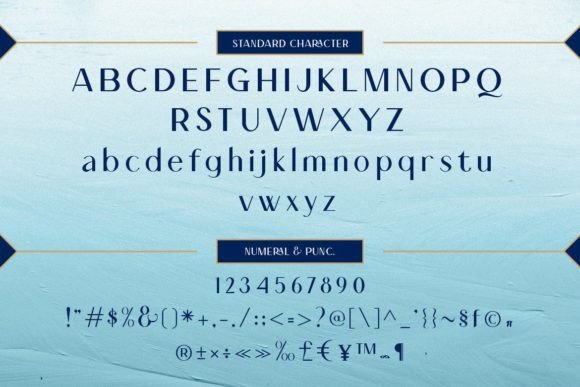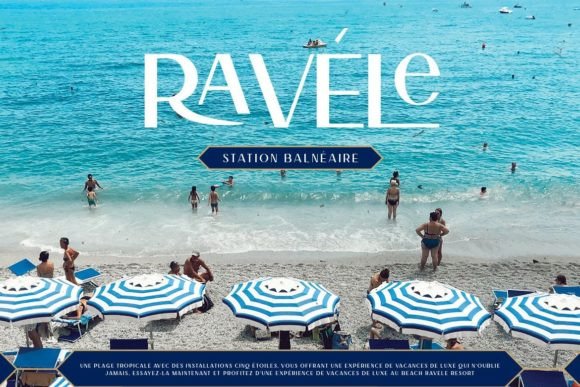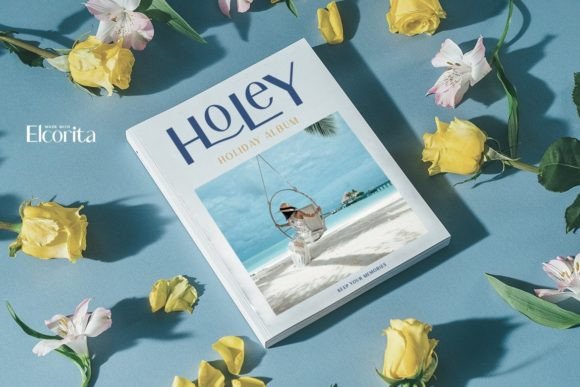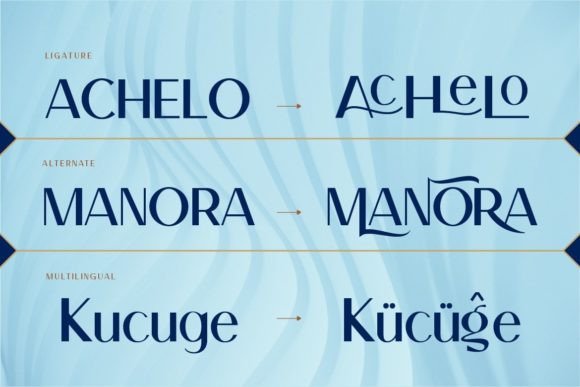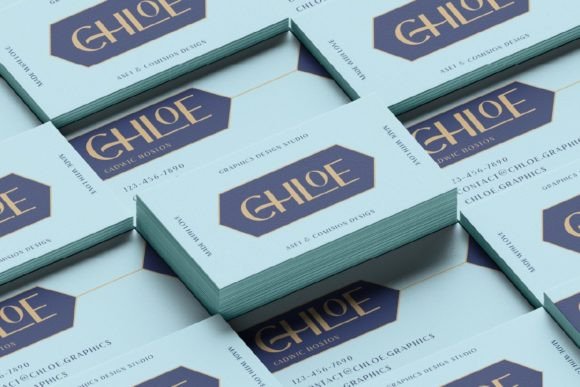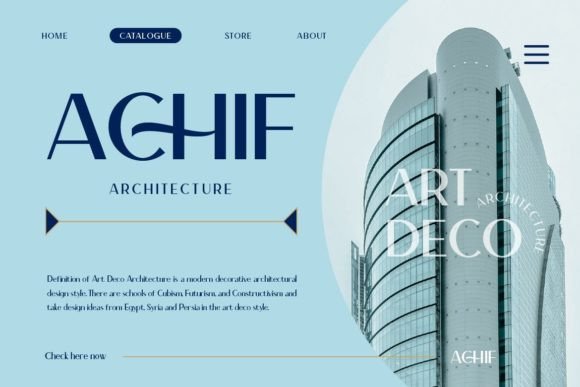
Introducing Elcorita – A Stunning Modern Sans Serif Art Deco Font
Are you tired of using the same old fonts for your design projects? Look no further than Elcorita, a gorgeous modern sans serif art deco inspired font that is sure to elevate your designs to the next level. With its bold contrasts, clean lines, and simple elegance, Elcorita is the perfect choice for designers and crafters looking to add a touch of sophistication to their work.
What is Elcorita Font?
Elcorita is a modern sans serif font that draws inspiration from the art deco style, popularized in the 1920s and 1930s. Characterized by its bold contrasts, geometric shapes, and metallic materials, art deco is a design movement that exudes luxury, glamour, and sophistication. Elcorita font captures the essence of art deco, while also incorporating a clean and simple aesthetic that makes it versatile and easy to use.
Key Features of Elcorita Font
So, what makes Elcorita font stand out from the rest? Here are some of its key features:
- Bold Contrasts: Elcorita font features bold contrasts that give it a sense of drama and elegance. The thick and thin lines create a sense of visual interest, making it perfect for headlines, titles, and logos.
- Clean and Simple: Despite its bold contrasts, Elcorita font is clean and simple, making it easy to read and use for both short and long text.
- Art Deco Inspiration: Elcorita font draws inspiration from the art deco style, giving it a unique and sophisticated look that is sure to impress.
- Versatile: Elcorita font is versatile and can be used for a variety of design projects, including logo design, social media graphics, movie titles, book titles, and more.
Use Cases for Elcorita Font
So, what can you use Elcorita font for? The possibilities are endless! Here are some use cases to get you started:
- Logo Design: Elcorita font is perfect for logo design, thanks to its bold and elegant aesthetic. Use it to create a logo that stands out and makes a statement.
- Social Media Graphics: Elcorita font is also great for social media graphics, including Facebook posts, Instagram stories, and Twitter headers.
- Movie Titles: Add a touch of glamour to your movie titles with Elcorita font. Its bold contrasts and art deco inspiration make it perfect for creating eye-catching titles.
- Book Titles: Elcorita font is also suitable for book titles, especially for fiction and non-fiction books that require a touch of sophistication.
- Secondary Text Font: Elcorita font can also be used as a secondary text font, paired with sans or serif fonts to add visual interest to your designs.
Why Choose Elcorita Font?
So, why should you choose Elcorita font for your design projects? Here are some reasons to consider:
- Unique and Sophisticated: Elcorita font offers a unique and sophisticated look that is sure to impress your clients and audience.
- Versatile: Elcorita font is versatile and can be used for a variety of design projects, making it a great addition to your font library.
- Easy to Read: Despite its bold contrasts, Elcorita font is easy to read, making it perfect for both short and long text.
- High-Quality: Elcorita font is a high-quality font that is designed to deliver exceptional results, even at small sizes.
In conclusion, Elcorita font is a stunning modern sans serif art deco inspired font that is sure to elevate your designs to the next level. With its bold contrasts, clean lines, and simple elegance, Elcorita font is perfect for designers and crafters looking to add a touch of sophistication to their work. Whether you’re designing a logo, social media graphics, movie titles, or book titles, Elcorita font is a great choice. So why wait? Download Elcorita font today and experience the power of art deco design!